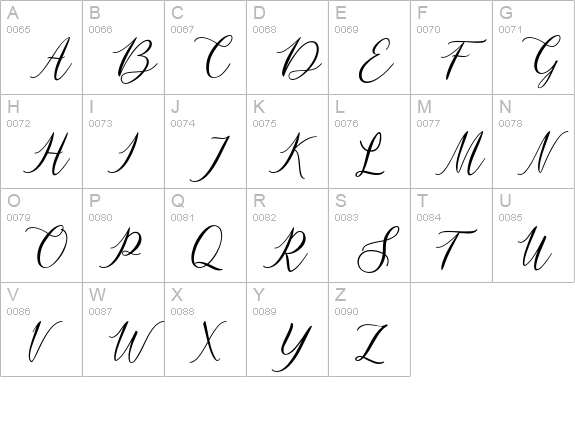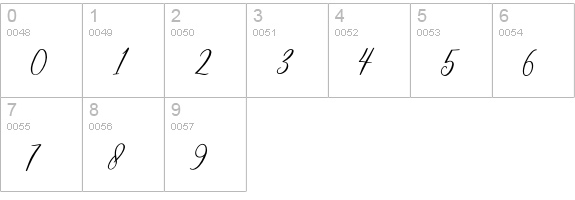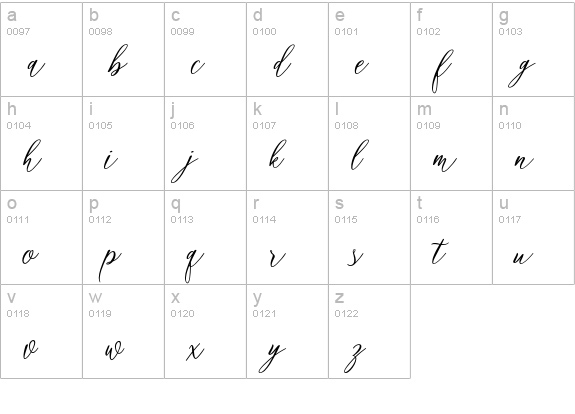
Matania Font Details
Matania is a free for personal use font in the Script category, designed by zulkhairilettering. It has been downloaded 228 times and is available for Windows, Mac and Linux.
Matania font is a versatile and elegant typeface that effortlessly blends modern sophistication with timeless charm. Its sleek lines and graceful curves make it perfect for a wide range of design projects, from branding and packaging to invitations and social media graphics.
With its clean and legible design, Matania font is suitable for both display and text usage, making it a versatile addition to any designer's toolkit. Whether you're working on a professional project or a personal passion project, this font is sure to elevate your design to the next level. Download Matania font today and unleash your creativity with this stunning typeface.